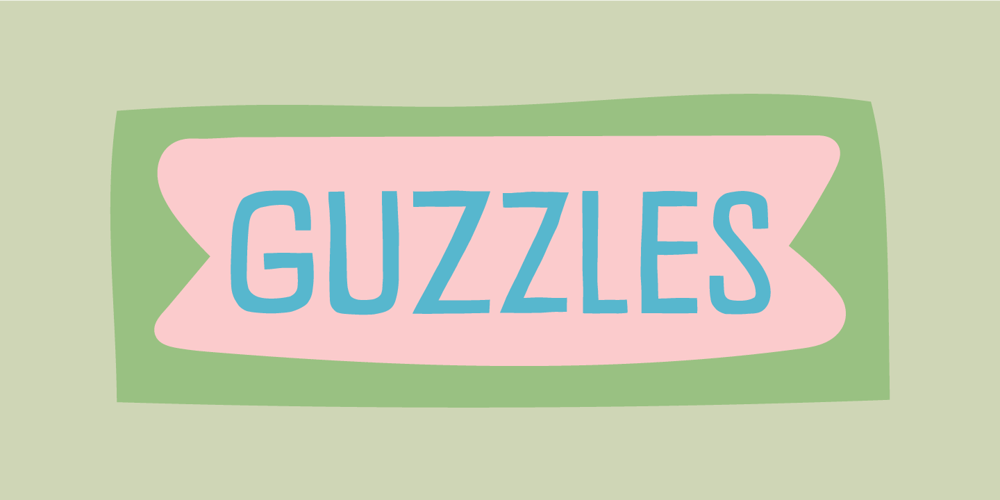
Guzzles
Guzzles font
Guzzles Font Family was designed by Jakob Fischer and published by PizzaDude.dk. Guzzles contains 2 styles and family package options. Guzzles is a very legible font and has that great ‘unevenish’ look – making it a great typeface for packaging and books, and practically everything that has to with organic and creative projects.I have added 4 slightly different versions of each letter, and they automatically changes as you type – and of course there is a strong multilingual support